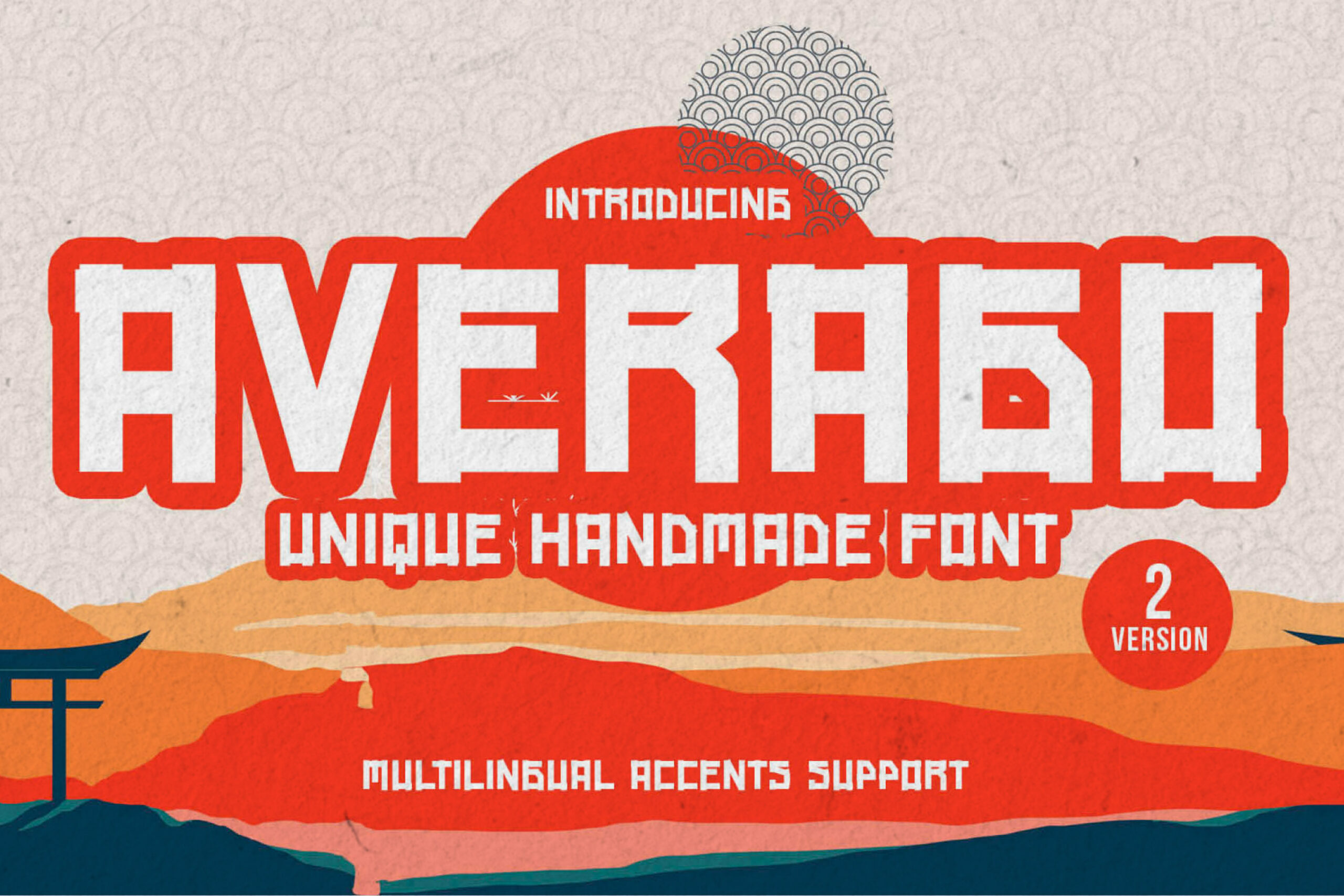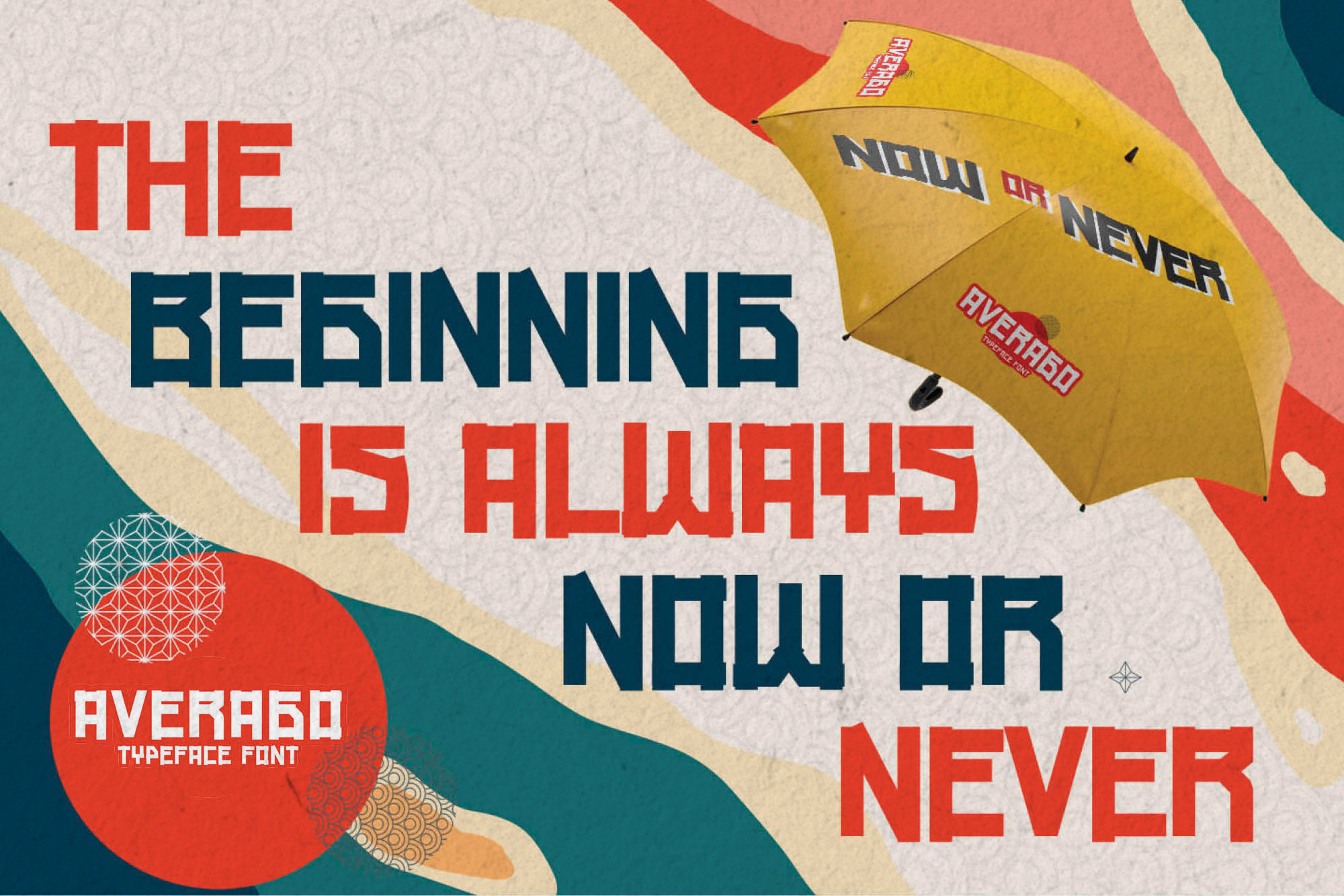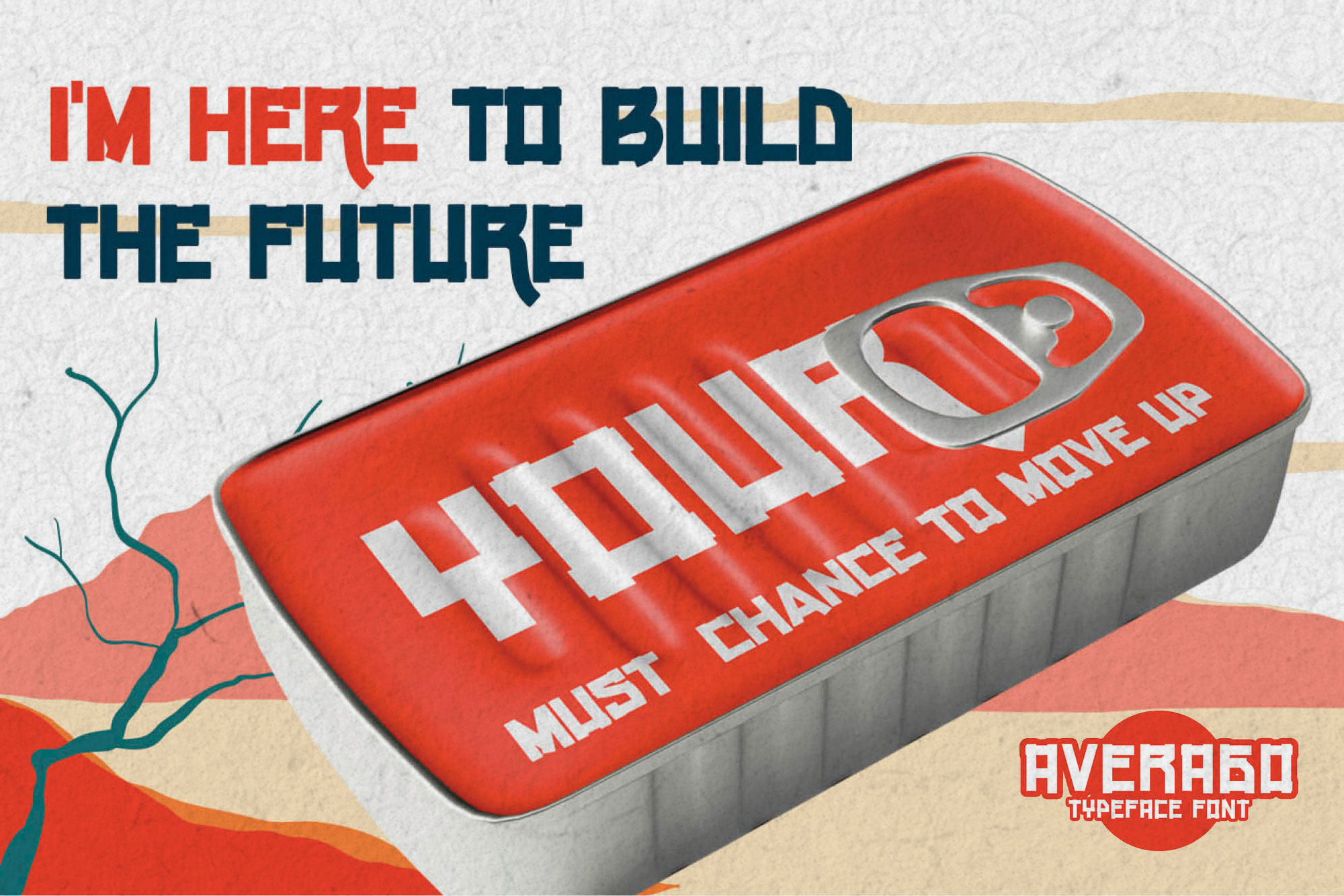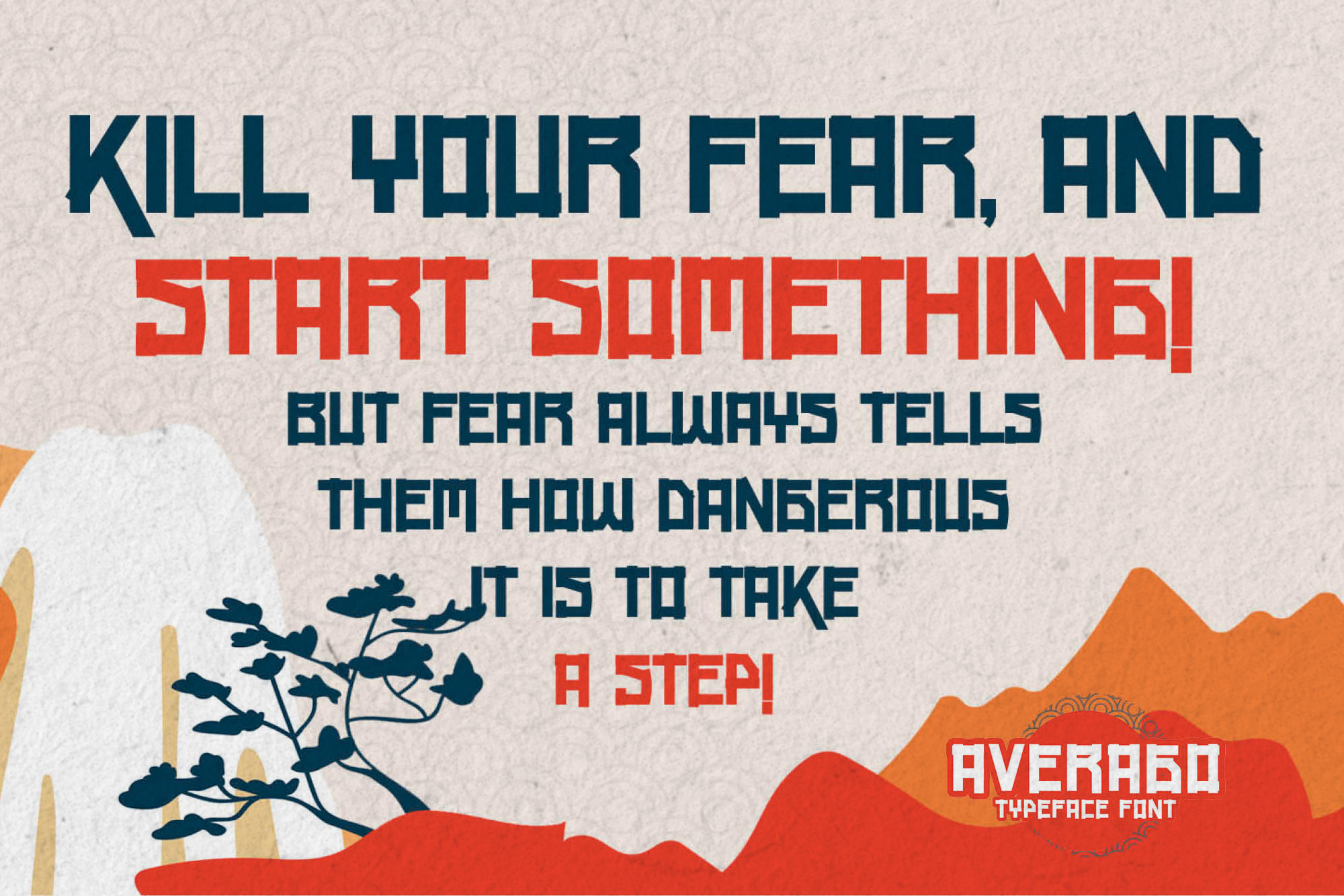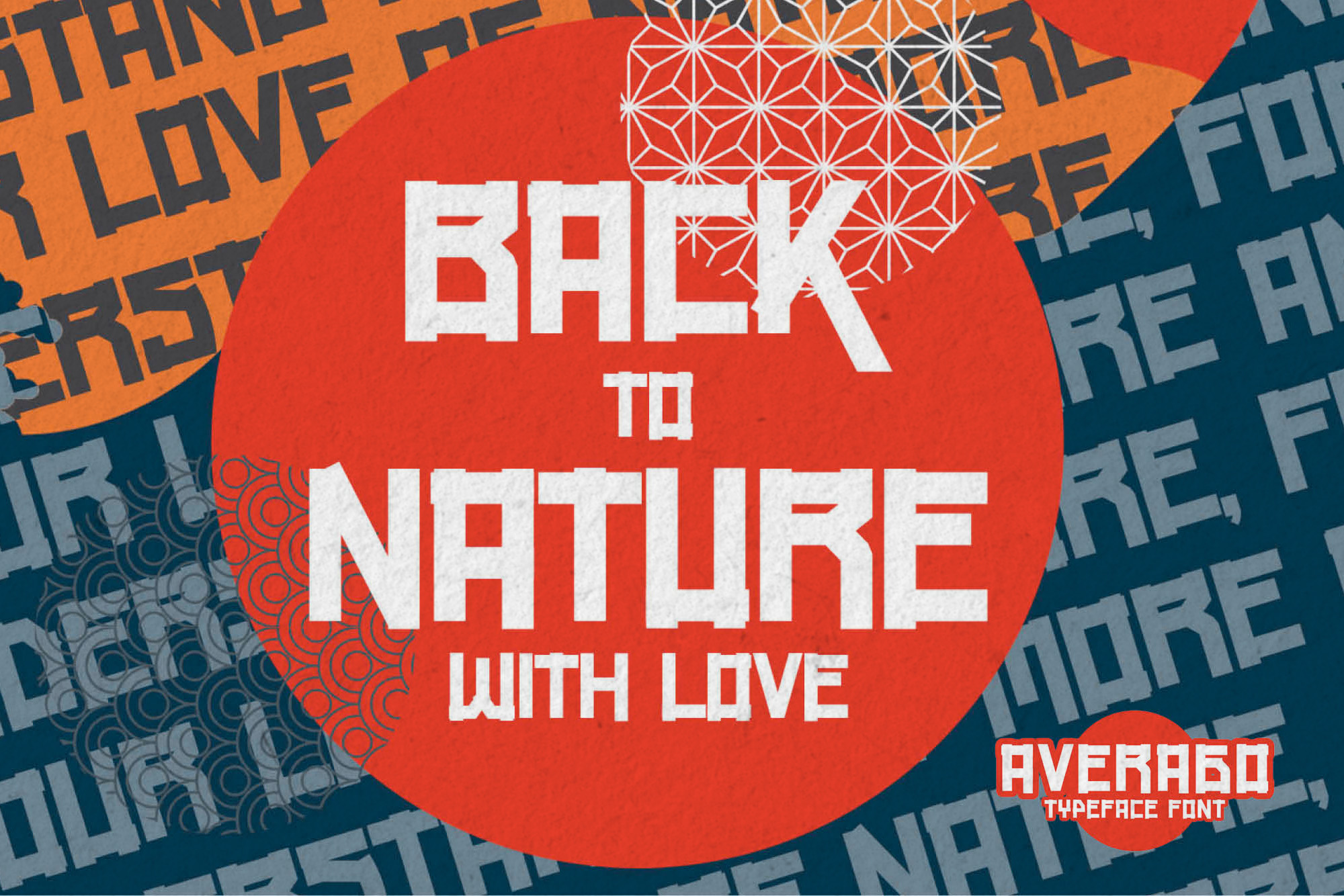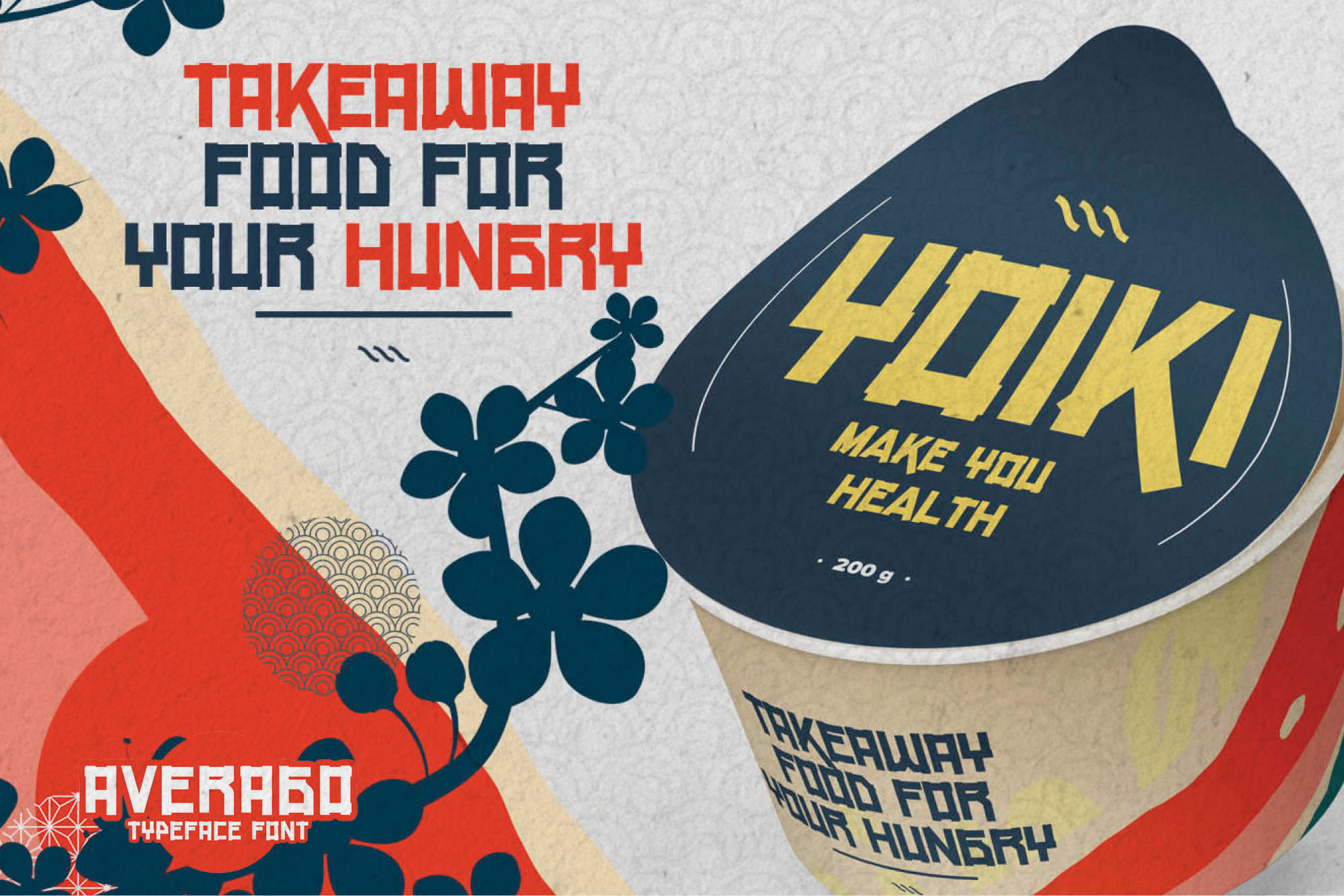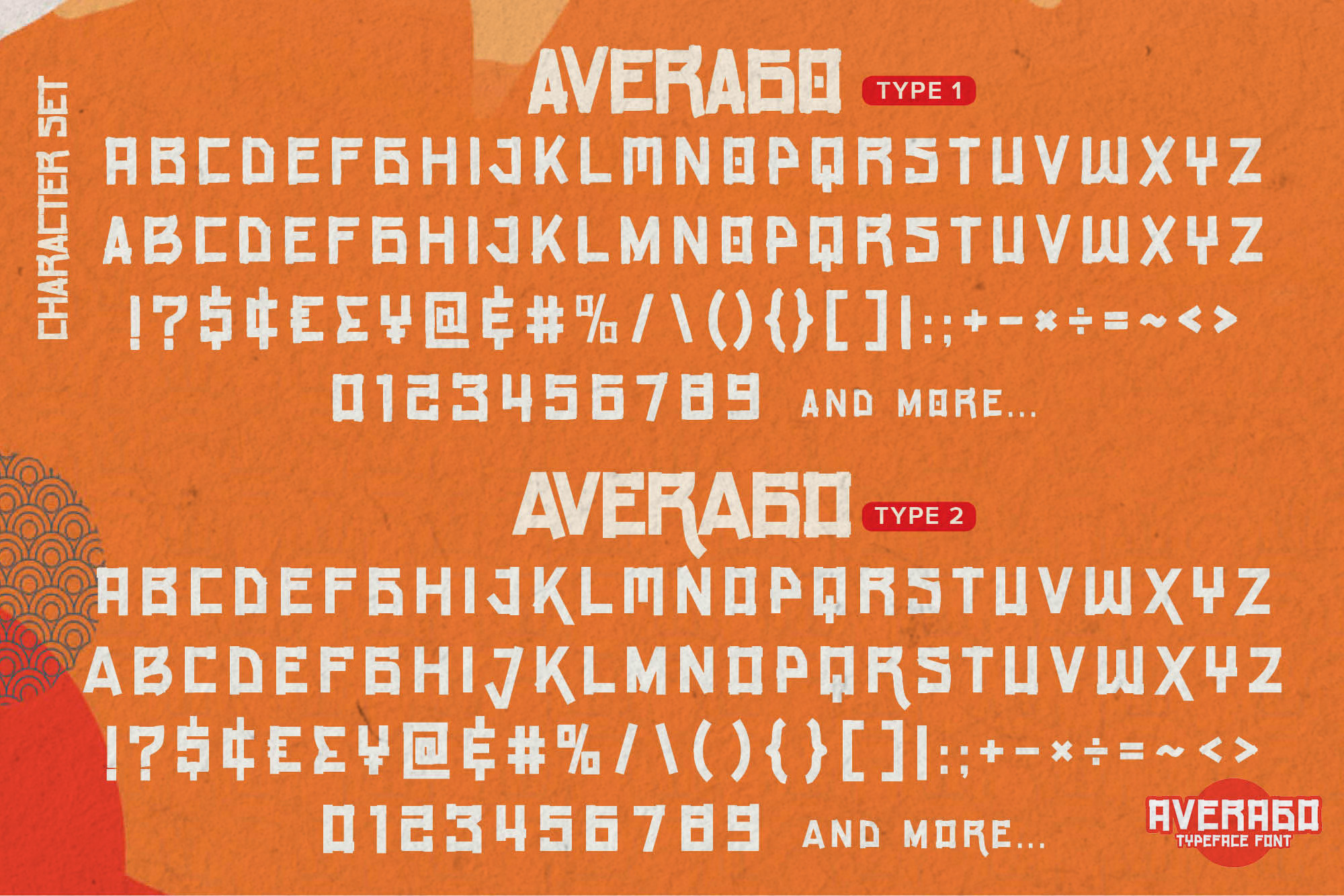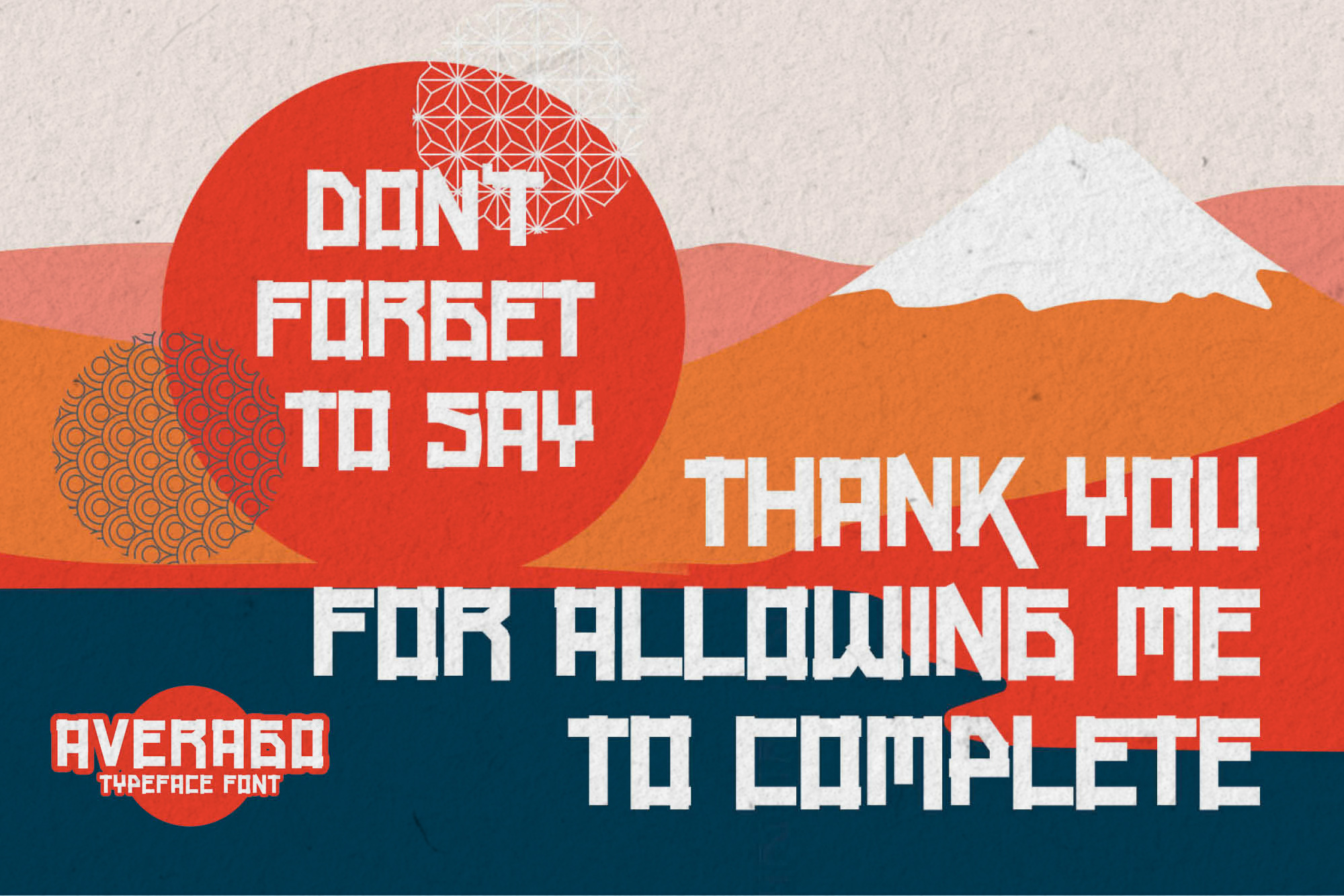
AVERAGO – Unique Handmade Font
AVERAGO
AVERAGO Clean
AVERAGO – Unique Handmade Font is a Modern font that is written casually and quickly.
That is why AVERAGO  has a authentic, and unique characteristic more natural look.                                  AVERAGO Perfect for logo designs, branding projects, Logo design,Quotes product packaging and another Project that strong require  font.